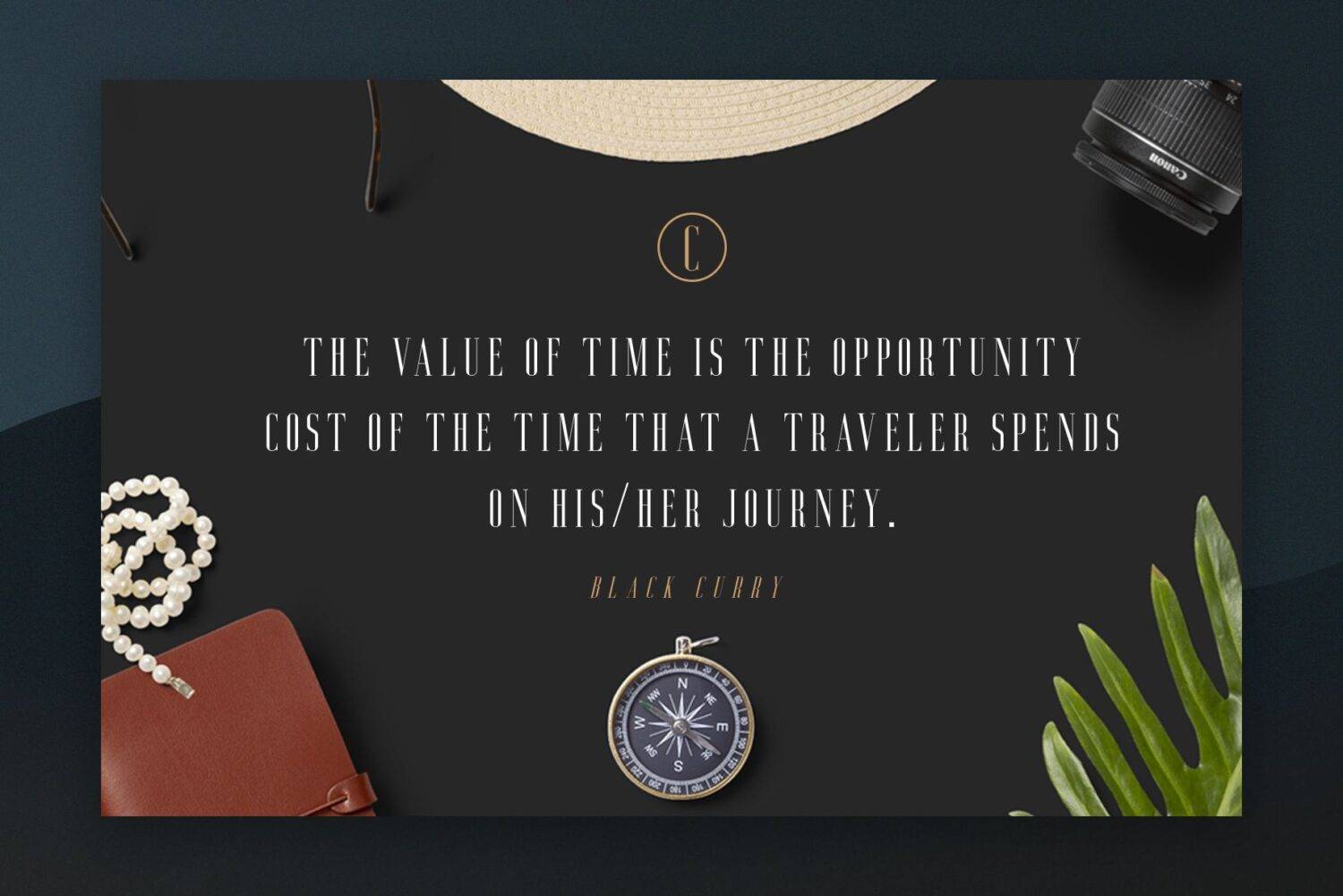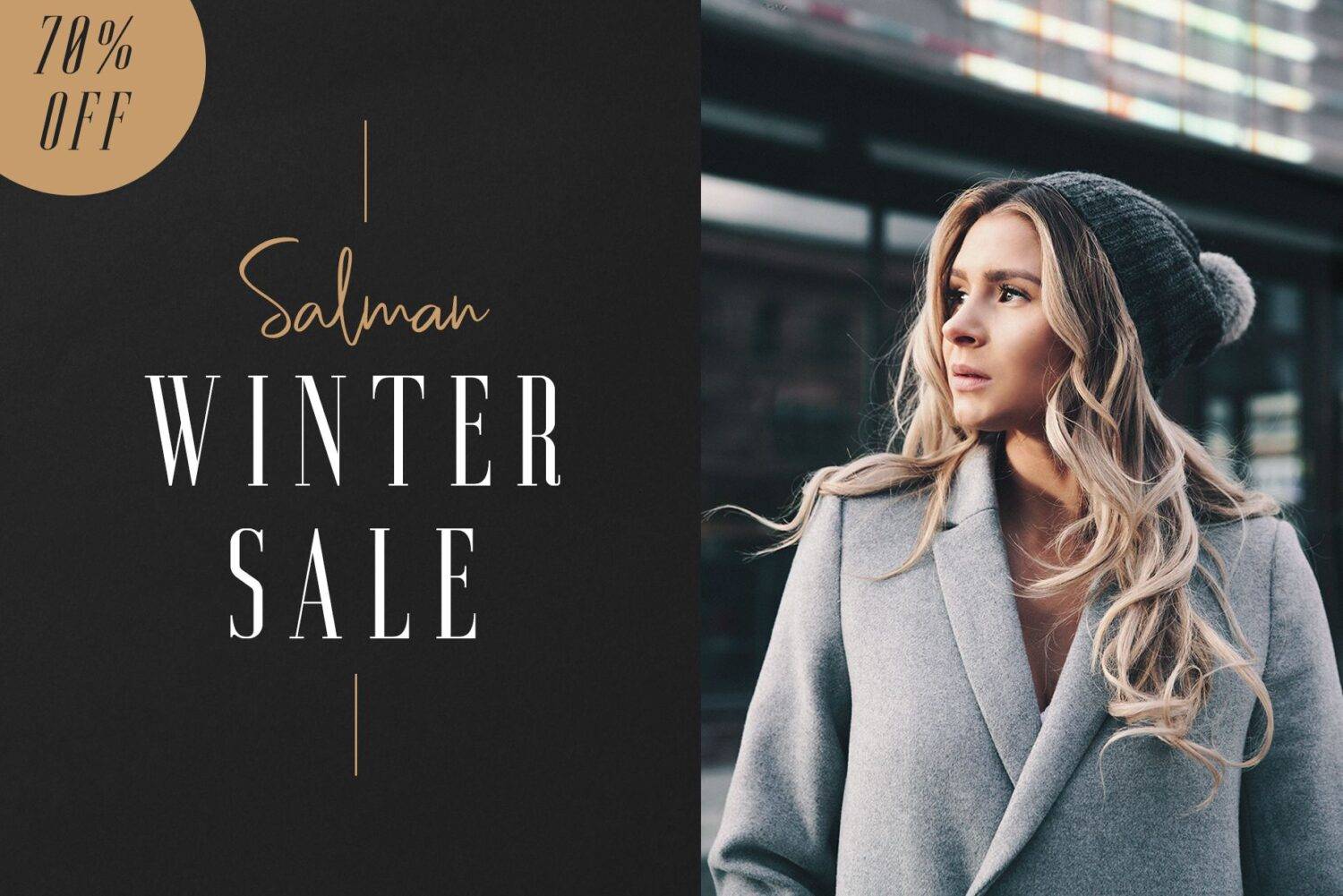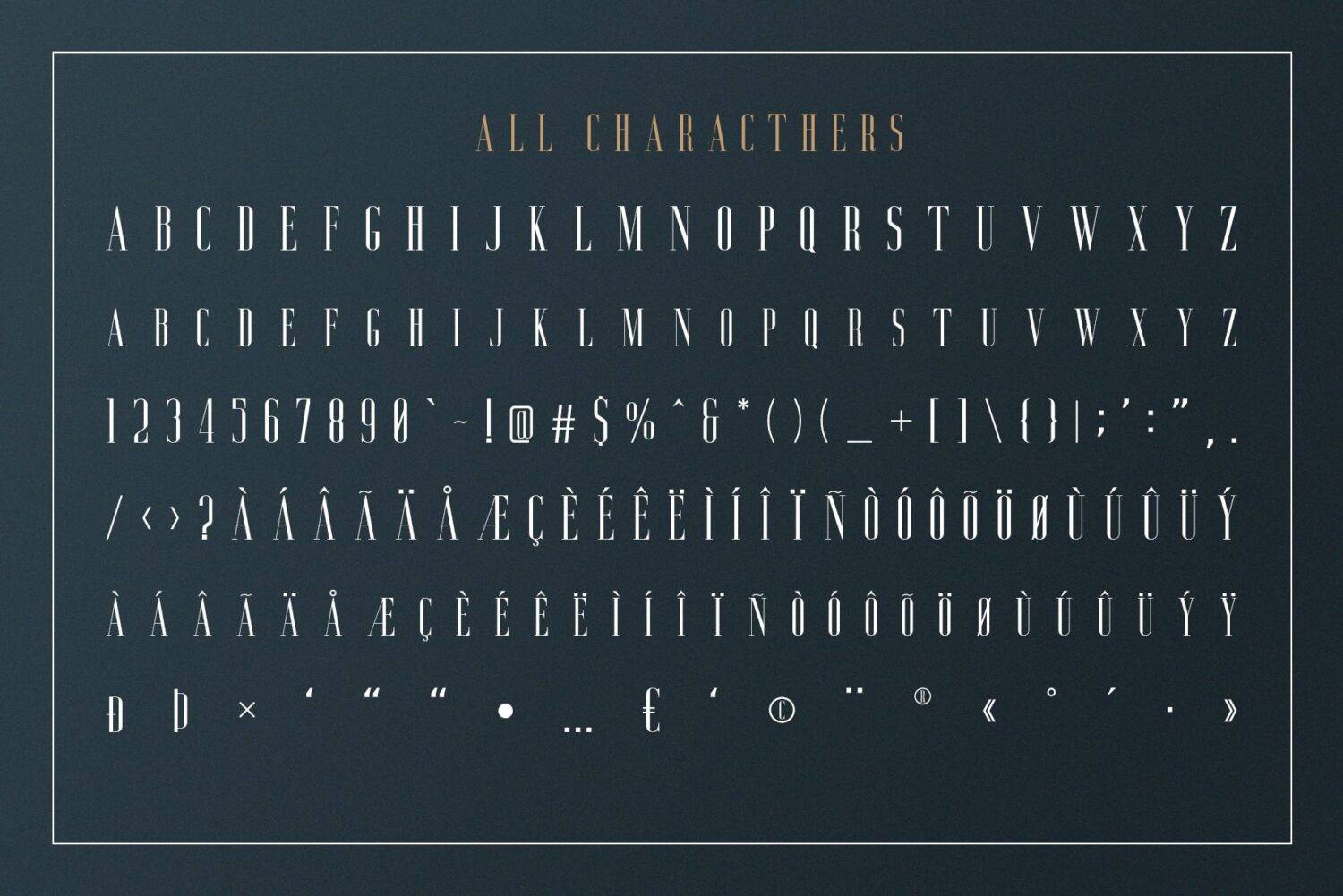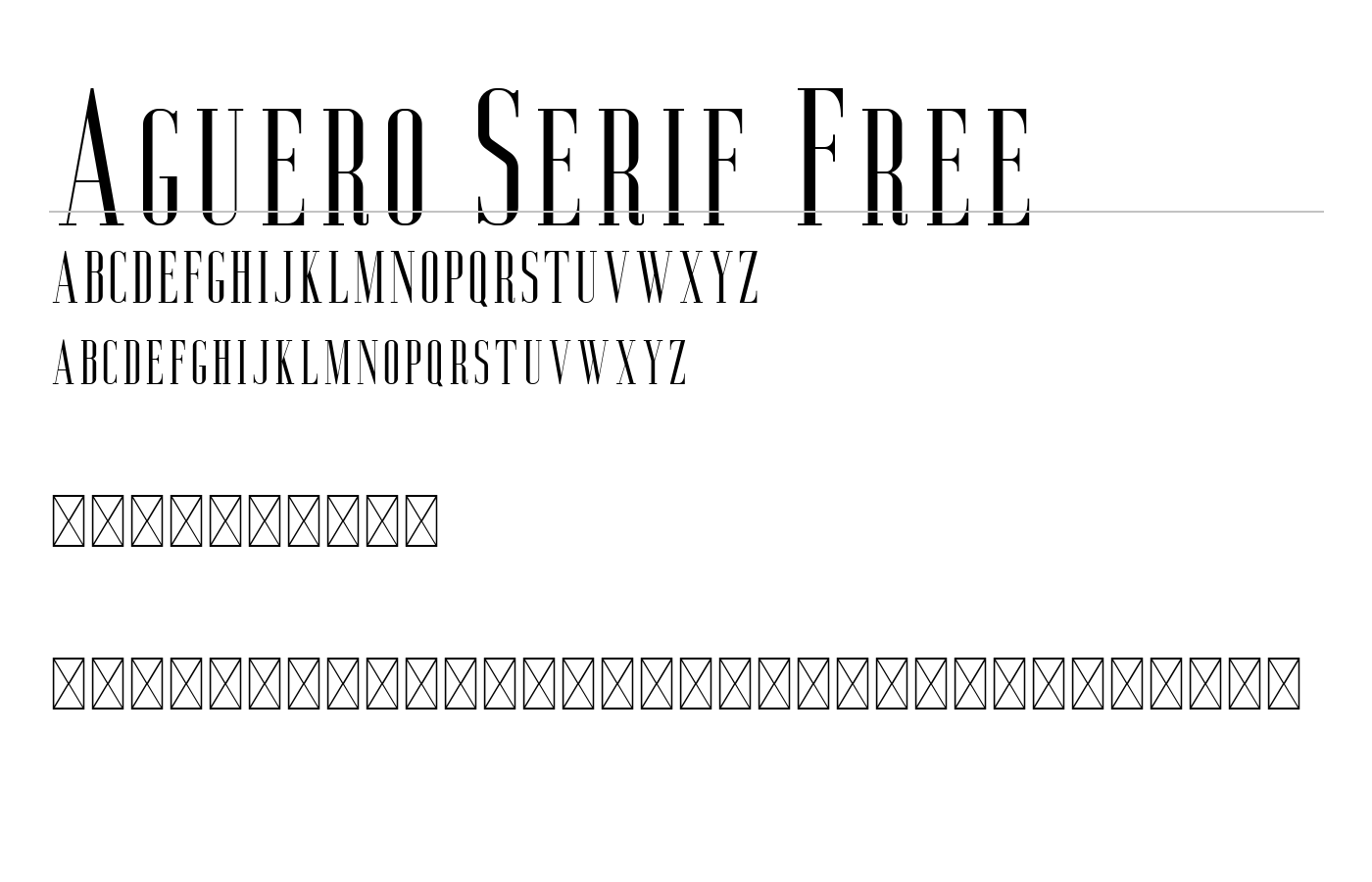
Aguero Serif is an elegant, ultra-condensed serif font with high contrast between thick and thin strokes, giving it a refined and sophisticated look. Its tall, narrow letterforms and sharp serifs make it ideal for striking headlines, logos, and luxury branding where a dramatic, vintage-inspired style is desired. This font works best in creative projects that demand a bold yet classy presence.
Aguero Serif Font
About Aguero Serif Font
| Font family | Aguero Serif Font |